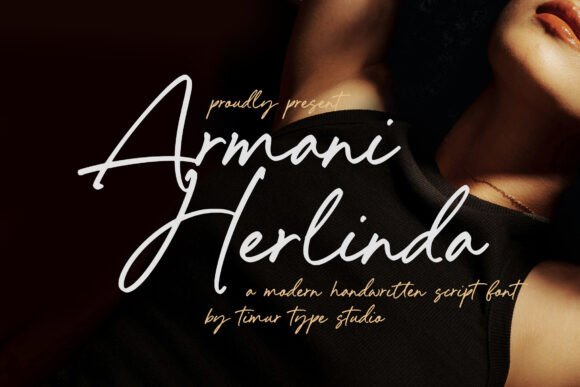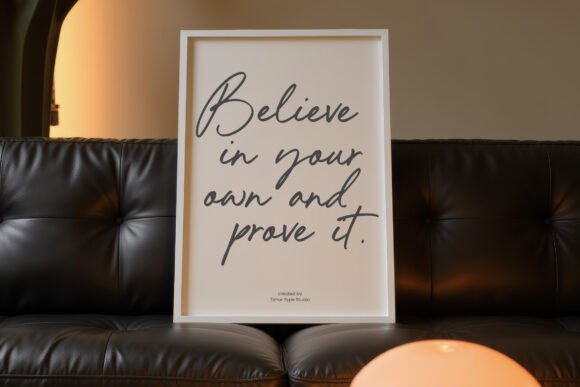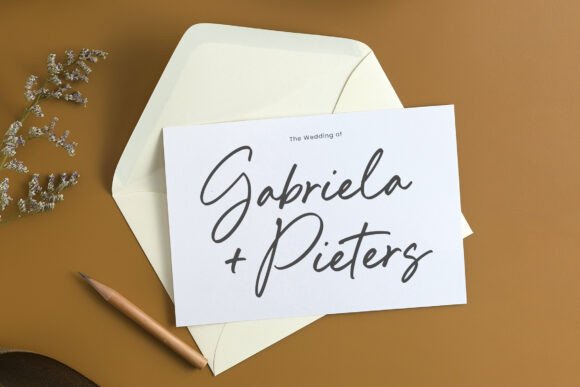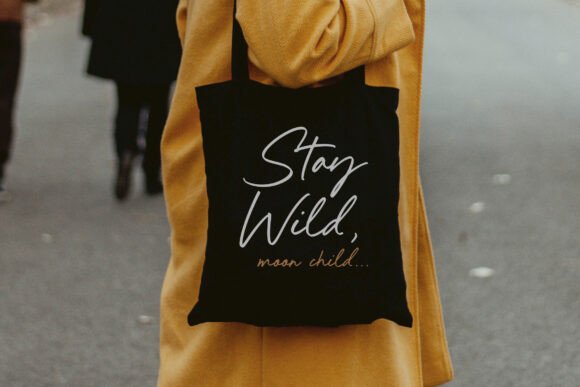
Armani Herlinda Font: Elegant Script for Wedding Invitations & Branding
About the Armani Herlinda Font
Let us introduce you to Armani Herlinda Font, where timeless design meets modern craftsmanship. Armani Herlinda
is a elegant and stylish modern handwritten script font that features fluid, flowing letterforms with a touch of sophistication. Its smooth curves and natural stroke variation give it a artistic feel, making it perfect for branding, invitations, logos, and other design projects that require a touch of refinement.
Armani Herlinda excels in applications requiring a touch of refined elegance, such as luxury branding, high-end invitations, or sophisticated logos. It works beautifully for short headlines and impactful statements, adding a sense of personality and style. However, its fluid nature makes it less suitable for body text or UI elements where readability is paramount; the varying stroke weights could hinder legibility in larger blocks of text.
Pairing Armani Herlinda with a clean sans-serif like Montserrat or a geometric sans-serif like Futura would create a strong contrast, balancing its organic curves with a structured, modern feel. For a more traditional approach, a subtle serif like Garamond or a neutral sans-serif like Lato could provide a sophisticated complement.
The font’s overall personality is elegant and sophisticated, yet approachable. Its subtle playfulness makes it suitable for brands conveying a sense of high-quality and style without being overly formal or austere.
Armani Herlinda Font Usage Examples
Armani Herlinda Font Example